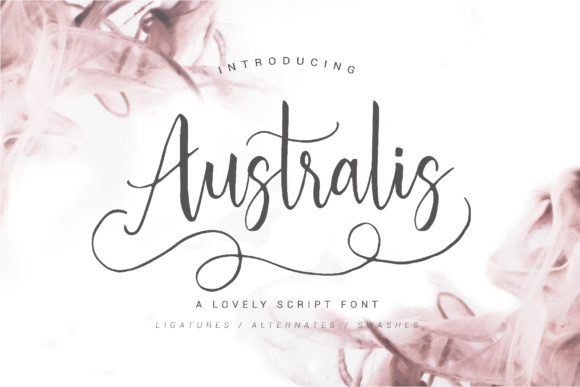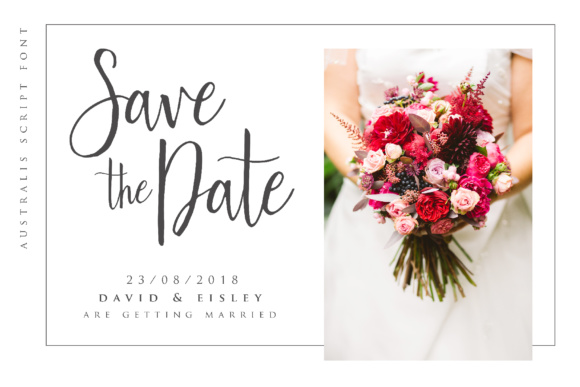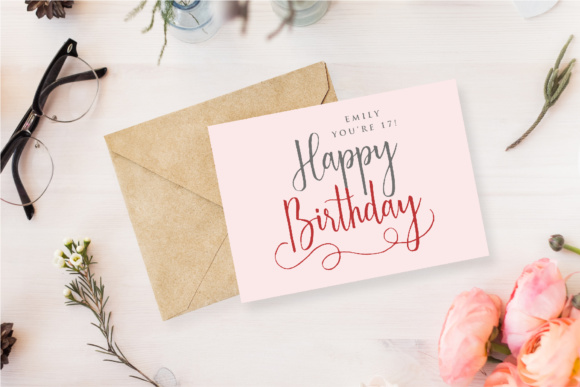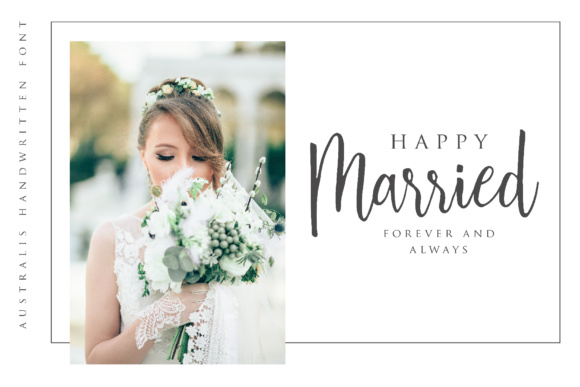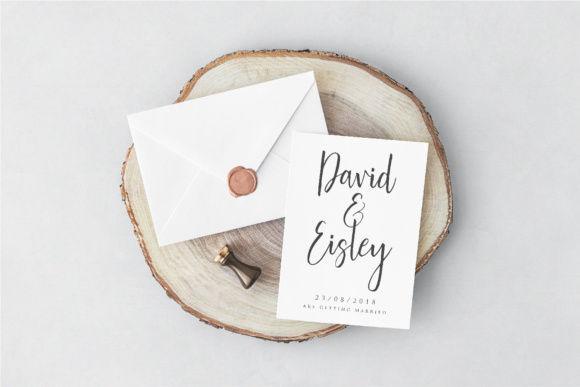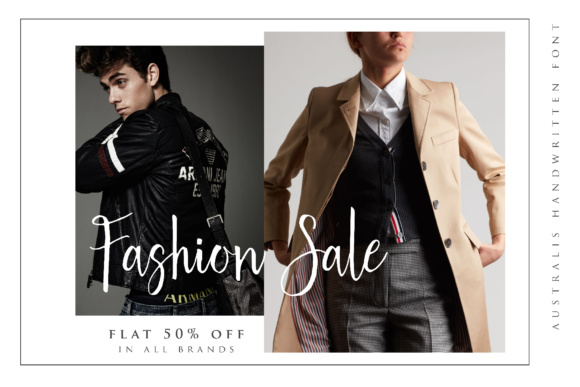
About Australis Font
Australis emerges as a beautiful handwritten font, tailor-made for invitations and a variety of design applications. Its enchanting aesthetic, characterized by a stunning flowiness, lends an exquisite touch to your projects. Designed with meticulous attention to detail, Australis stands out as the epitome of hand-lettered inspiration, enhanced further by its array of additional alternate characters.
This font’s allure lies in its graceful and organic strokes, evoking a sense of warmth and personalization. Australis not only captures the essence of hand-lettering but elevates it with a unique flow that adds a touch of sophistication to your designs. Its versatility becomes apparent as it effortlessly adapts to various creative contexts, making it an ideal choice for invitations and beyond.
The inclusion of additional alternate characters enhances Australis’ flexibility, allowing designers to create truly unique and personalized designs. This feature enables you to experiment with different letterforms, ensuring that your typographic compositions stand out and resonate with the desired aesthetic. Whether you’re crafting wedding invitations, event posters, or any project that requires a personal touch, Australis provides the creative freedom needed for captivating designs.
Envision Australis setting the tone for an elegant wedding invitation, its handwritten charm conveying a sense of intimacy and care. Picture it adorning promotional materials, infusing a touch of authenticity into the design. The font’s ability to create hand-lettered inspired designs makes it a valuable asset for designers seeking to add a genuine, human touch to their work.
In summary, Australis goes beyond being a mere font; it’s a design tool that brings a handwritten masterpiece to your fingertips. Its beauty lies not only in its stunning flowiness but also in its capacity to inspire creativity. With additional alternate characters, Australis empowers designers to craft personalized and captivating designs, making it a perfect choice for invitationals and a wide range of design projects.